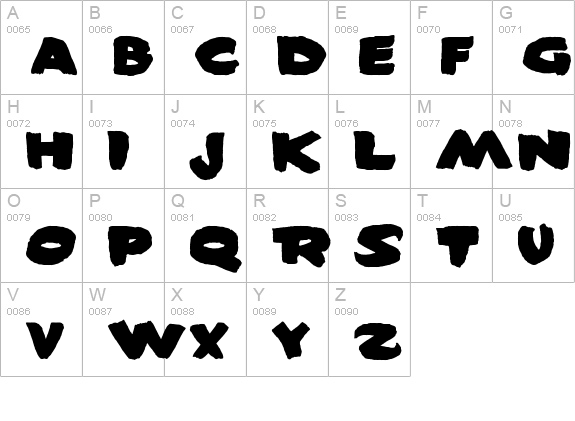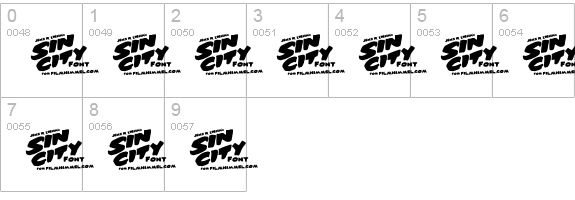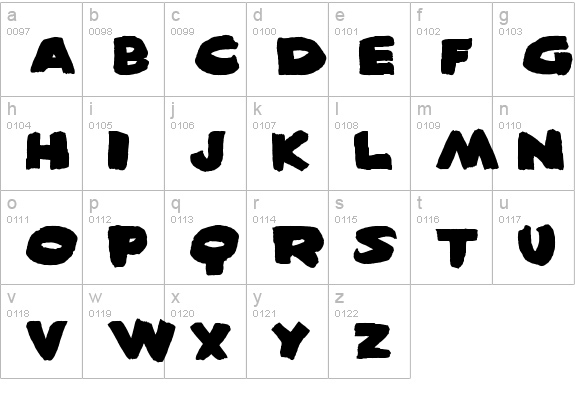
Sin City Font Details
Introducing the captivating Sin City font, a mesmerizing typeface that effortlessly combines vintage elegance with a modern edge. This font is the epitome of sophistication and versatility, making it the perfect choice for a wide range of creative projects. Sin City font exudes an aura of timeless allure, with its sleek lines and distinctive letterforms that command attention. Its bold and strong presence adds a touch of drama and flair to any design, making it ideal for logo designs, branding materials, magazine layouts, and much more. What sets Sin City font apart is not only its stunning aesthetics but also its incredible accessibility. This remarkable font is freely available to download at FontsMarket.com, ensuring that anyone can add a touch of elegance to their projects without incurring any additional costs. Whether you're a professional designer or an amateur enthusiast, Sin City font offers endless possibilities for artistic expression. Its versatility allows it to seamlessly adapt to various design styles, from vintage and retro themes to modern and contemporary aesthetics. With Sin City font, you can effortlessly elevate your designs to new heights, capturing the attention of your audience and leaving a lasting impression. Its sleek and sophisticated nature is guaranteed to make your projects stand out from the crowd. So why wait? Embrace the allure of Sin City font and unleash your creativity today. Download it for free at FontsMarket.com and embark on a journey of captivating design possibilities.